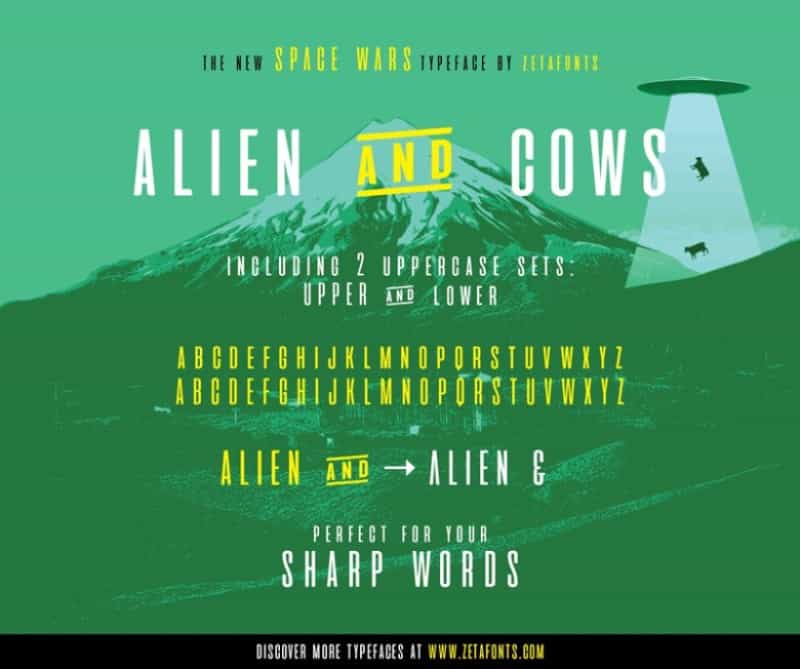
Aliens and Cows designed by Francesco Canovaro is an ultra condensed sans display typeface. It comes in one weight and features an extended character set with support for European languages, and contextual alternates for some characters.